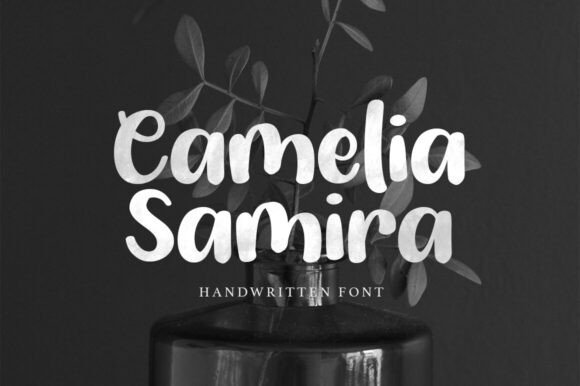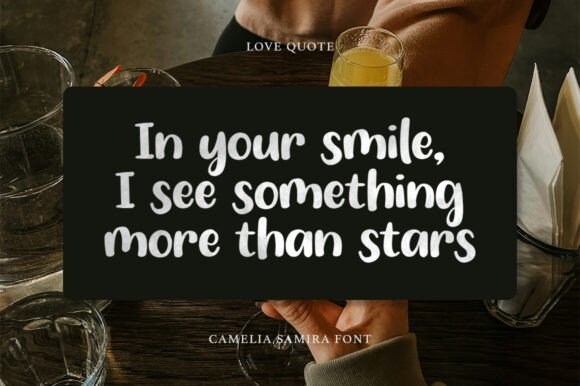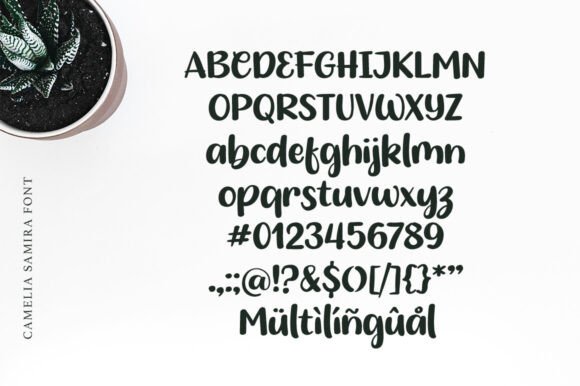
Camelia Samira Font
About the Camelia Samira Font
Step up your design game with Camelia Samira Font, a font that exudes confidence and style. Camelia Samira is a bold handwritten font with a soft, rounded touch that brings warmth and charm to your design. Its natural curves and friendly flow make it ideal for logos, lifestyle branding, modern wedding designs, packaging, and Instagram quotes. It’s graceful yet fun — perfect for adding a personalized touch to any creative project.
Camelia Samira’s friendly personality makes it a strong choice for branding projects needing a touch of approachability, particularly in the lifestyle, food, and beauty sectors. It excels in short-form applications like logos, headlines, and social media graphics. However, its handwritten nature makes it less suitable for extended body text or UI elements where readability is paramount.
For optimal visual harmony, pair Camelia Samira with a clean sans-serif like Montserrat for a modern contrast, or a classic serif such as Playfair Display for a more traditional feel. A simple geometric sans-serif could also work well, providing a structured counterpoint to its organic forms.
The font’s overall aesthetic is best described as warmly bold and approachable; a balance of strong character and soft curves that avoids appearing overly playful or childish.
Camelia Samira Font Usage Examples
Camelia Samira Font Example